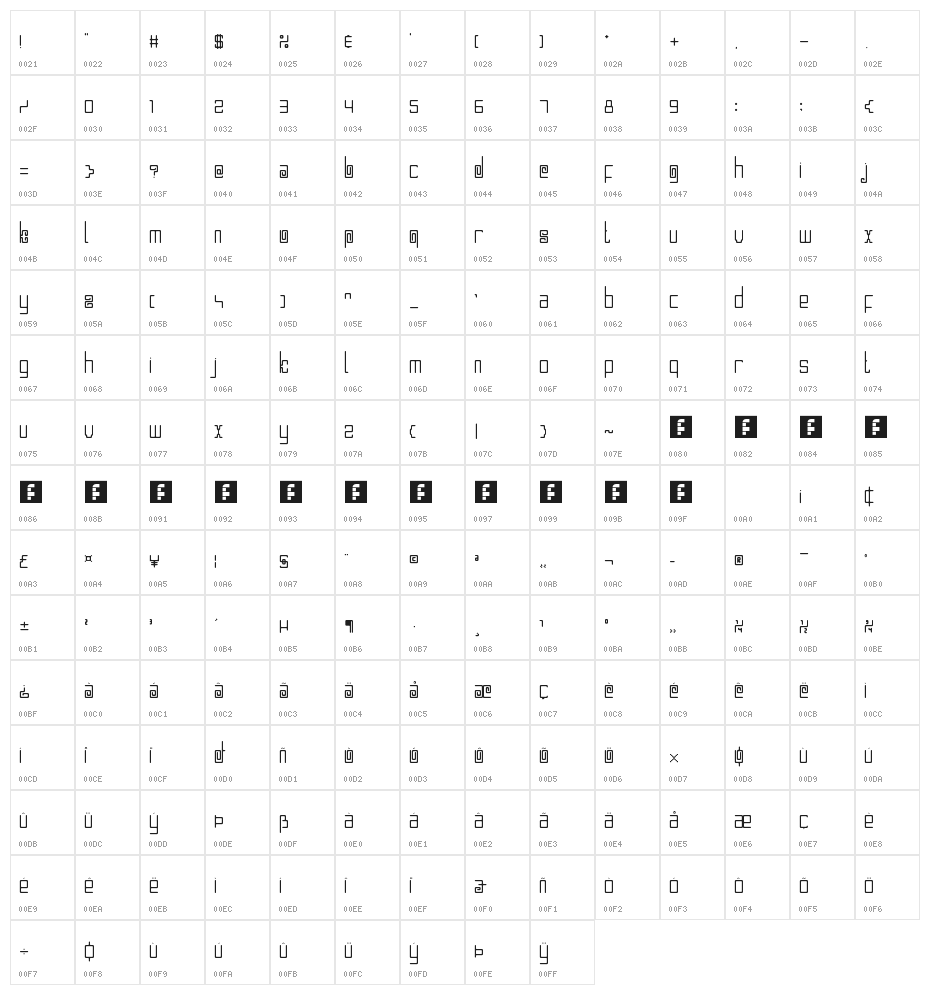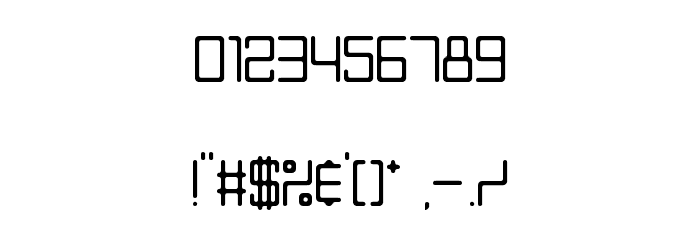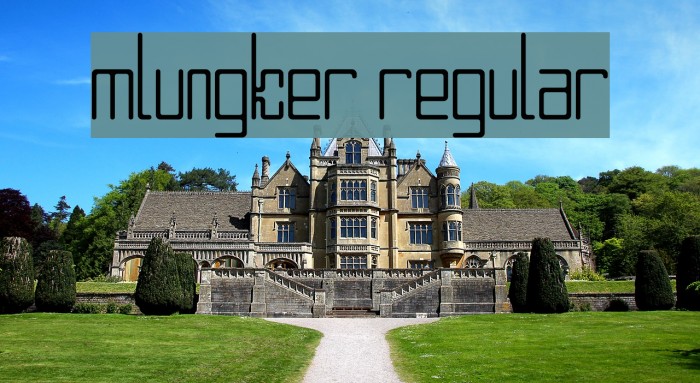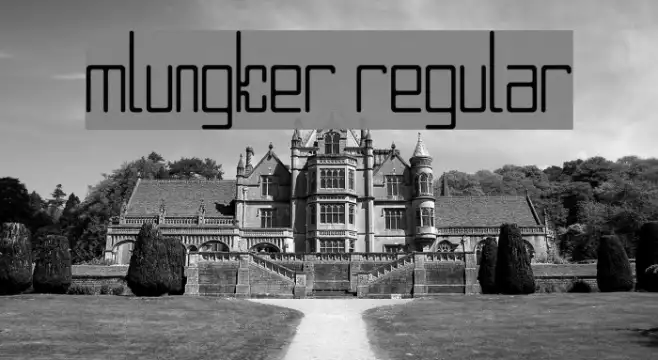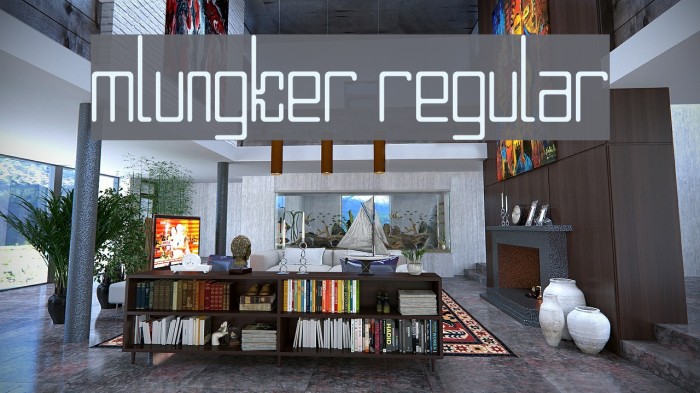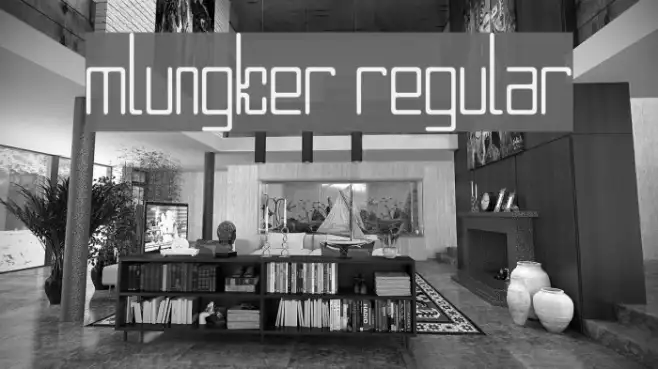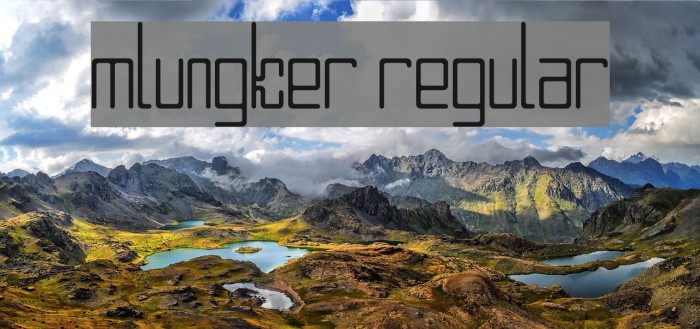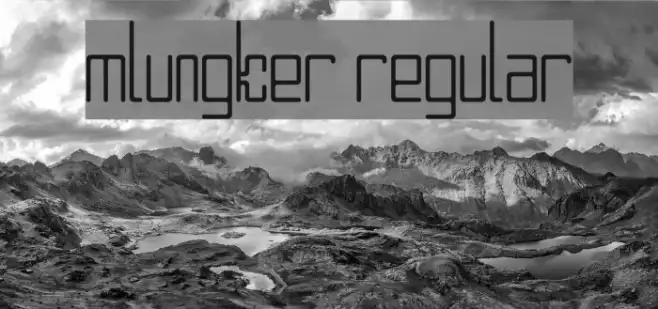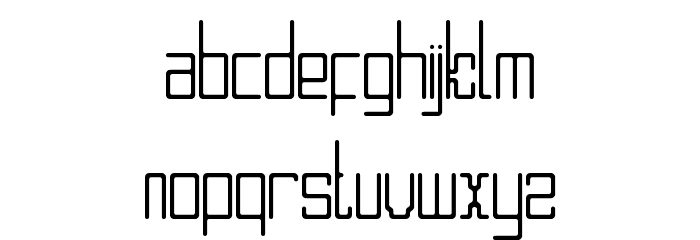
Mlungker Regular Font
Mlungker Regular Description
This font features a geometric and modern design with a unique, futuristic appeal. The characters are composed of straight lines and right angles, giving it a structured and technical look. The uniformity in the height of the letters and the consistent stroke width contribute to its clean and minimalist aesthetic. The font maintains a balance between readability and style, making it suitable for digital and print media. Its distinctive appearance is enhanced by the rounded corners, which soften the overall look while retaining a sense of precision and clarity.
| Use Case | Logos, Headlines, Digital interfaces |
| Proposed Projects | Ideal for technology branding, digital interfaces, modern posters, and futuristic-themed projects. |